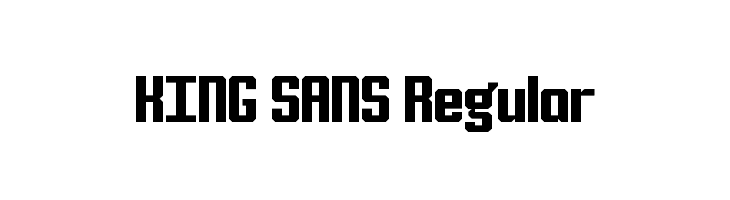
( Fonts by Agent J - ajsfonts.tripod.com )
A futuristic, geometric font with a structured, mechanical appearance.
A bold, geometric font with a futuristic and industrial style.
( Fonts by Graphix Line Studio )
Playful handwritten sans-serif font.
( Fonts by Galdino Otten - galdinootten.com )
A whimsical, hand-drawn font with thin, elongated letterforms.
( ADavis )
A whimsical, handwritten font with playful, irregular strokes.